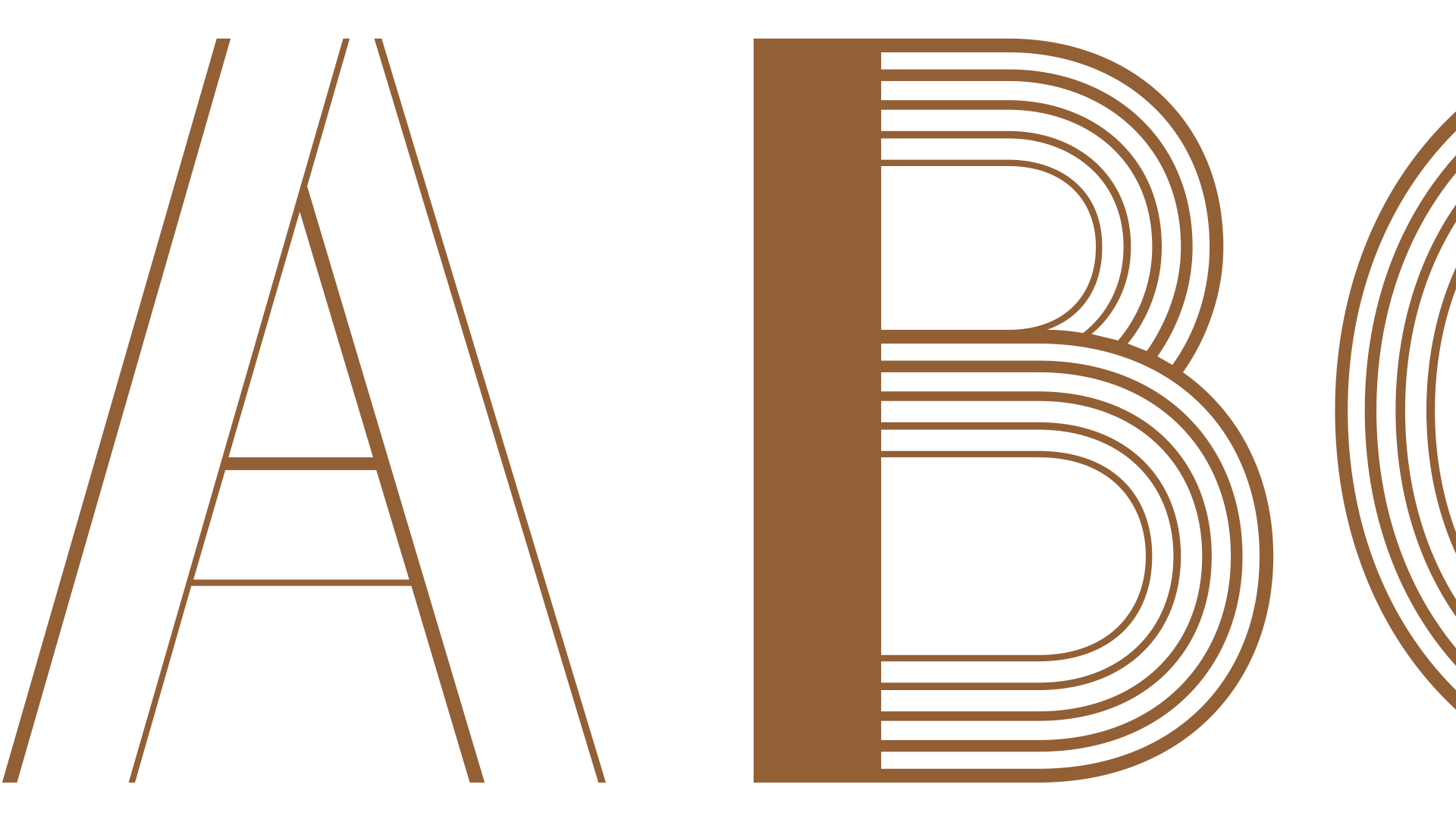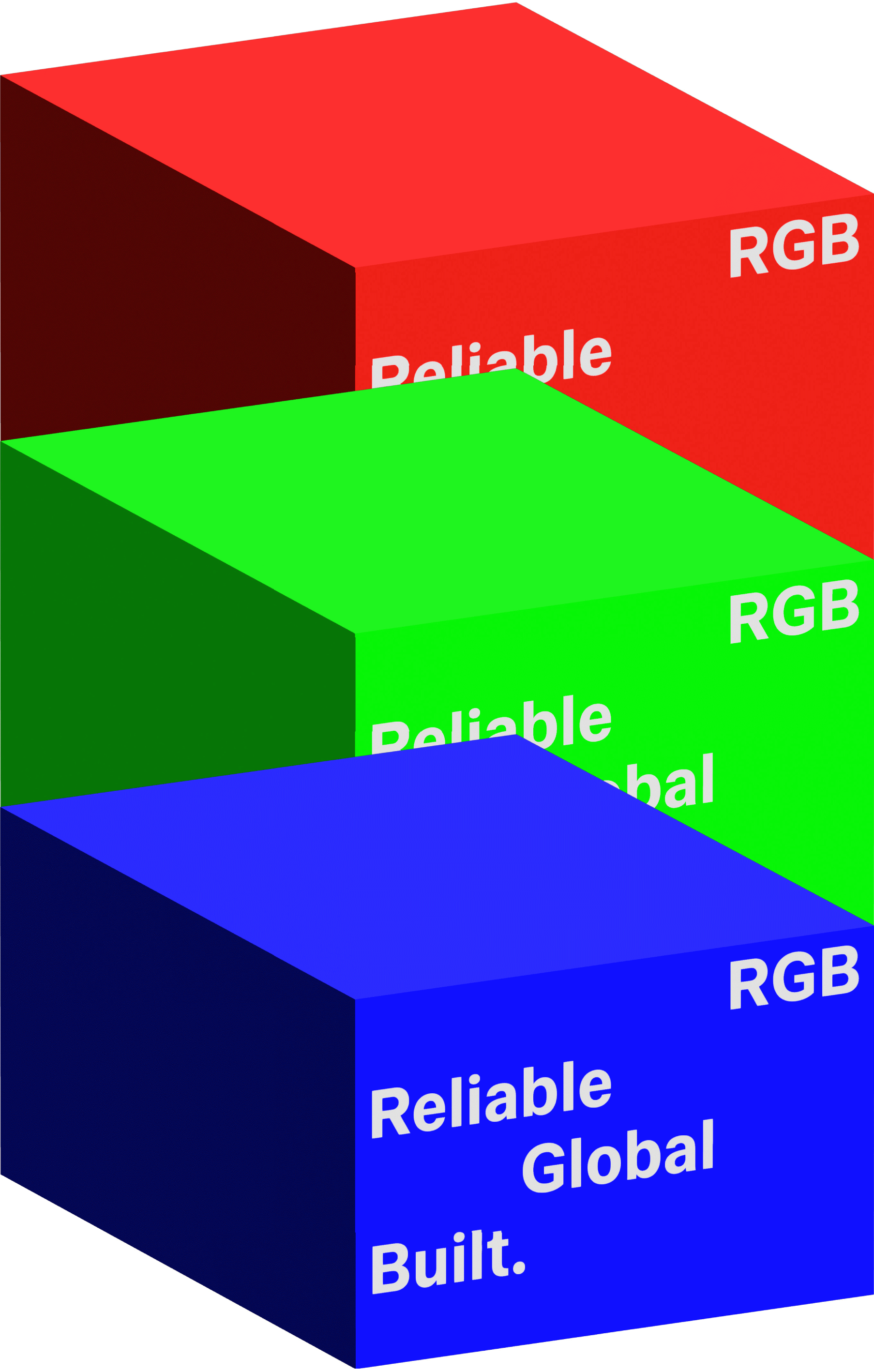
PRISMAX has some new friends: PRISMAX OPEN, PRISMAX MIX and PRISMAX SOLID.
A contemporary 5-line humanist display typeface, PRISMAX draws on a long tradition of optical and multi-line alphabets, with references to Rudolf Koch’s PRISMA (1931) and Akihiko Seki’s AKI LINES (1970/72). Its graded lines create a strong sense of movement and dimension, while a set of interlocking ligatures adds further typographic character. The family is now ready for typographic layering. Using PRISMAX SOLID as a background, the different styles can be combined and coloured to create a wide range of graphic variations.
As with many of our fonts, details are paramount. This is where we spent our time. Our typefaces are recognised by how they look – a certain design DNA built into our library through craft and experience. Sometimes a single letter defines a font. We asked ourselves, is anything missing? The answer was ‘a utilitarian sans’ built for screens and everyday use – from micro-typography on medical packaging to digital products shapingdaily life. Through research, we wrote a brief for every glyph. Then we built it. It took time because we wanted to create something distinctly different from what we had done before.
Here it is: RGB
A new font system for screens.
Content first.
Typeface second.